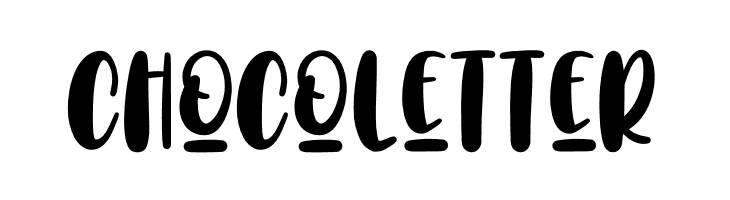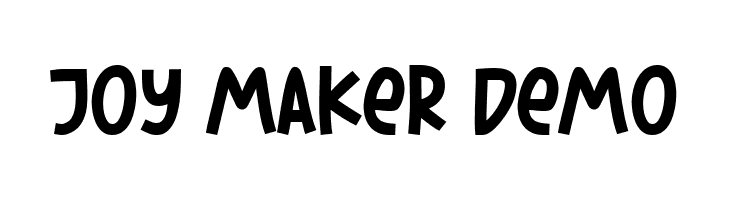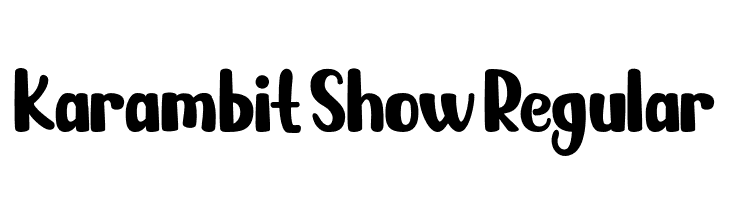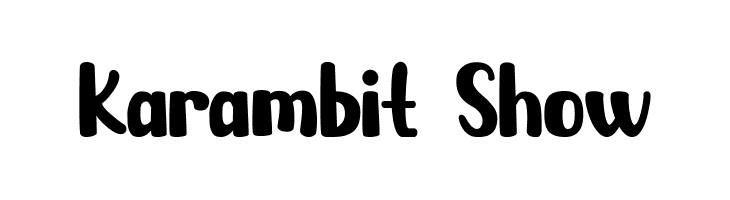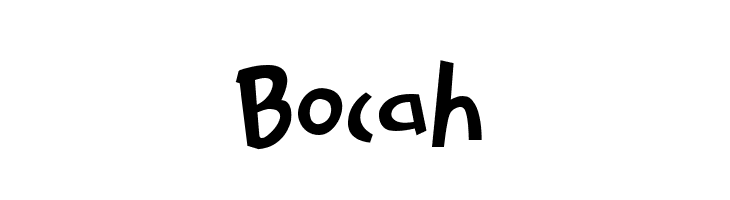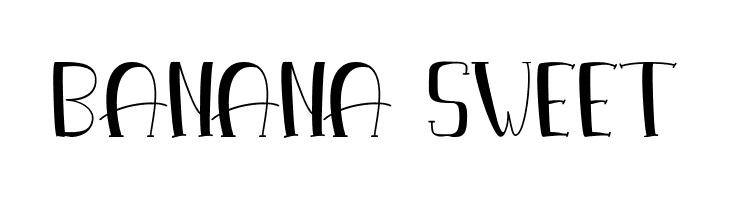
( Fonts by Typefar )
A playful, bold handwritten font with smooth, rounded edges and lively character.
( Fonts by Typefar )
A playful, bold font with rounded, thick strokes and a hand-drawn feel.
( Fonts by Mabhal Studio )
A playful, hand-drawn font with bold, rounded characters.
( Fonts by epiclinez )
A bold, playful font with rounded, hand-drawn characters.
( Fonts by DM Studio )
A bold, playful font with chunky, whimsical characters.
( Fonts by Priogi Rahayu )
A playful, bold font with a hand-drawn, rounded style.
( Fonts by Priogi Rahayu )
A playful, bold font with rounded edges and a whimsical style.
( Fonts by Ketapel Creative )
A playful, hand-drawn font with bold, uneven strokes and a whimsical style.
( Fonts by Ketapel Creative )
A playful and whimsical font with bold, irregular strokes and a lively appearance.
( Fonts by Priogi Rahayu )
A playful, whimsical font with tall, narrow letterforms and exaggerated serifs.